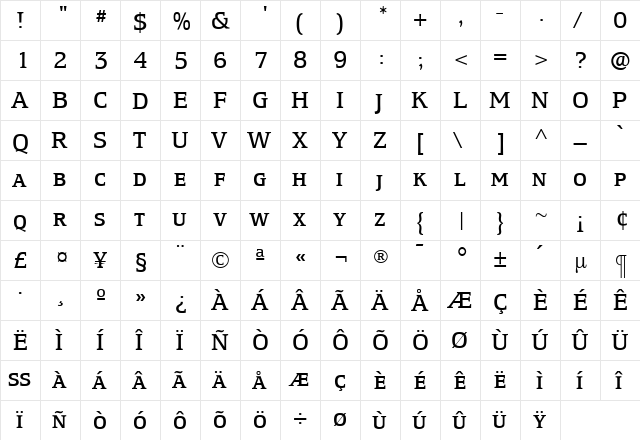
EquestrienneBookExpert Roman
Design Context for EquestrienneBookExpert Typeface
EquestrienneBookExpert offers clean, dependable letterforms without strong stylistic allegiance, making it a practical choice for designers who need flexibility.